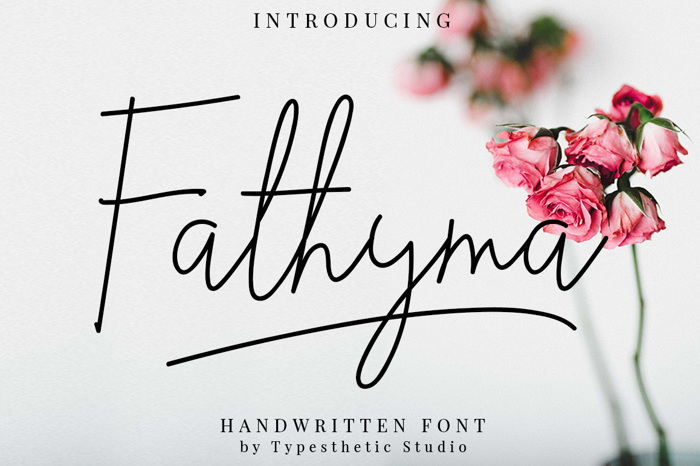
Fathyma Font
Fathyma is clean & fresh script with a stylish handwritten style make this font looks natural, classy and perfect for any awesome projects that need handwriting taste.
With exaggerated strokes and an bouncy baseline, Fathyma has an unmistakable charm; perfect for logos, wedding stationery, cards, gift designs, product packaging and handwritten quotes.